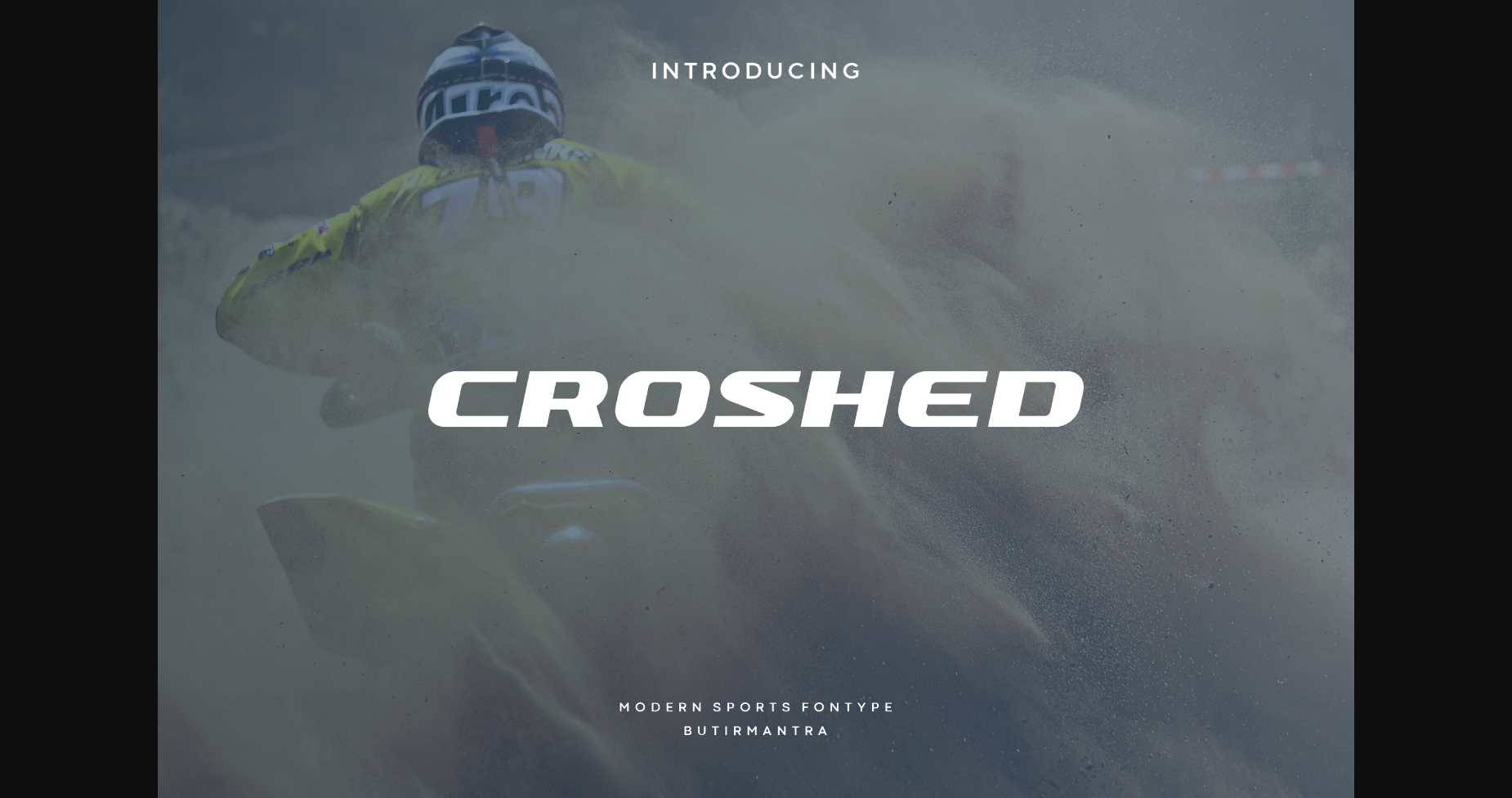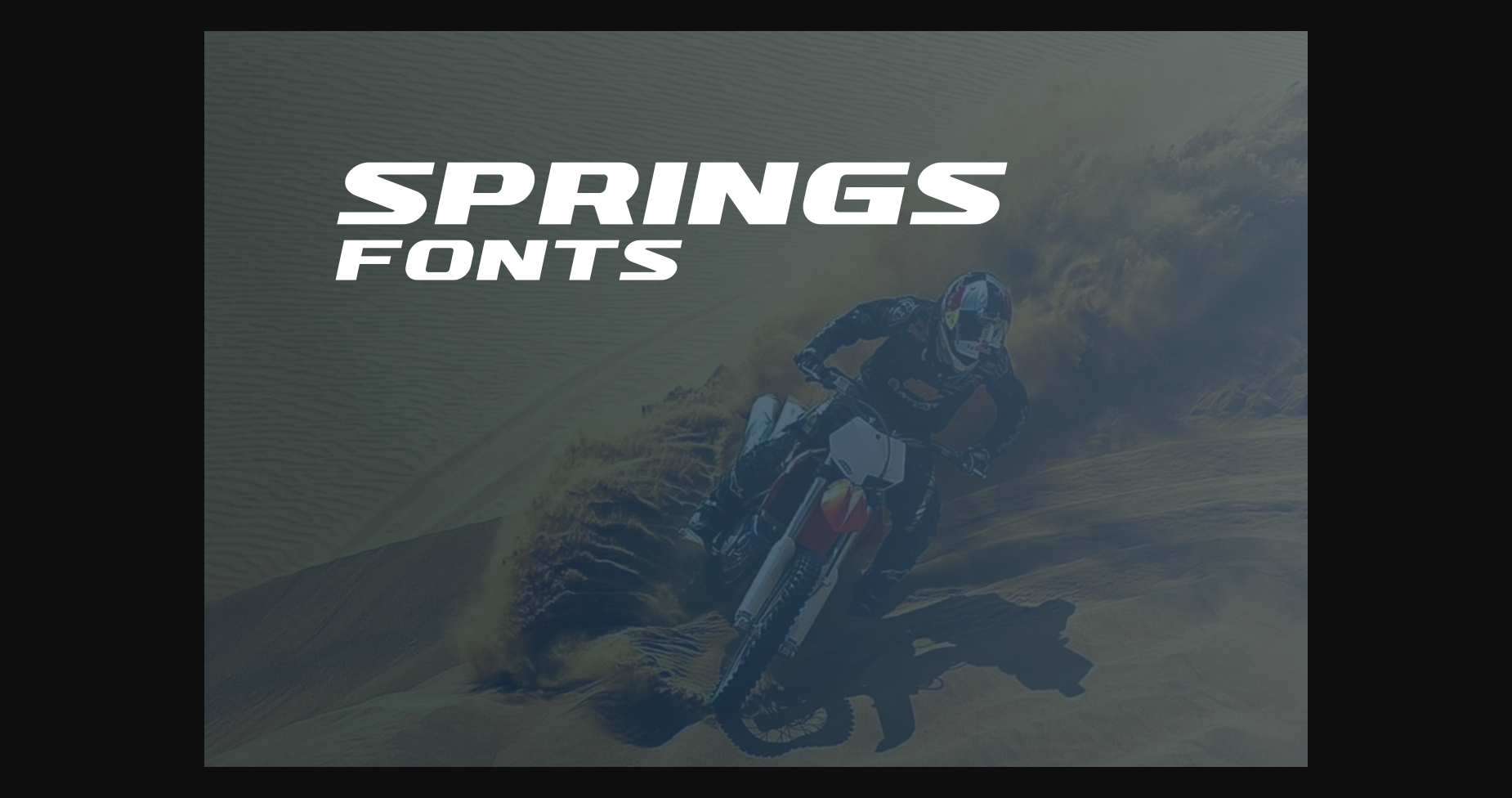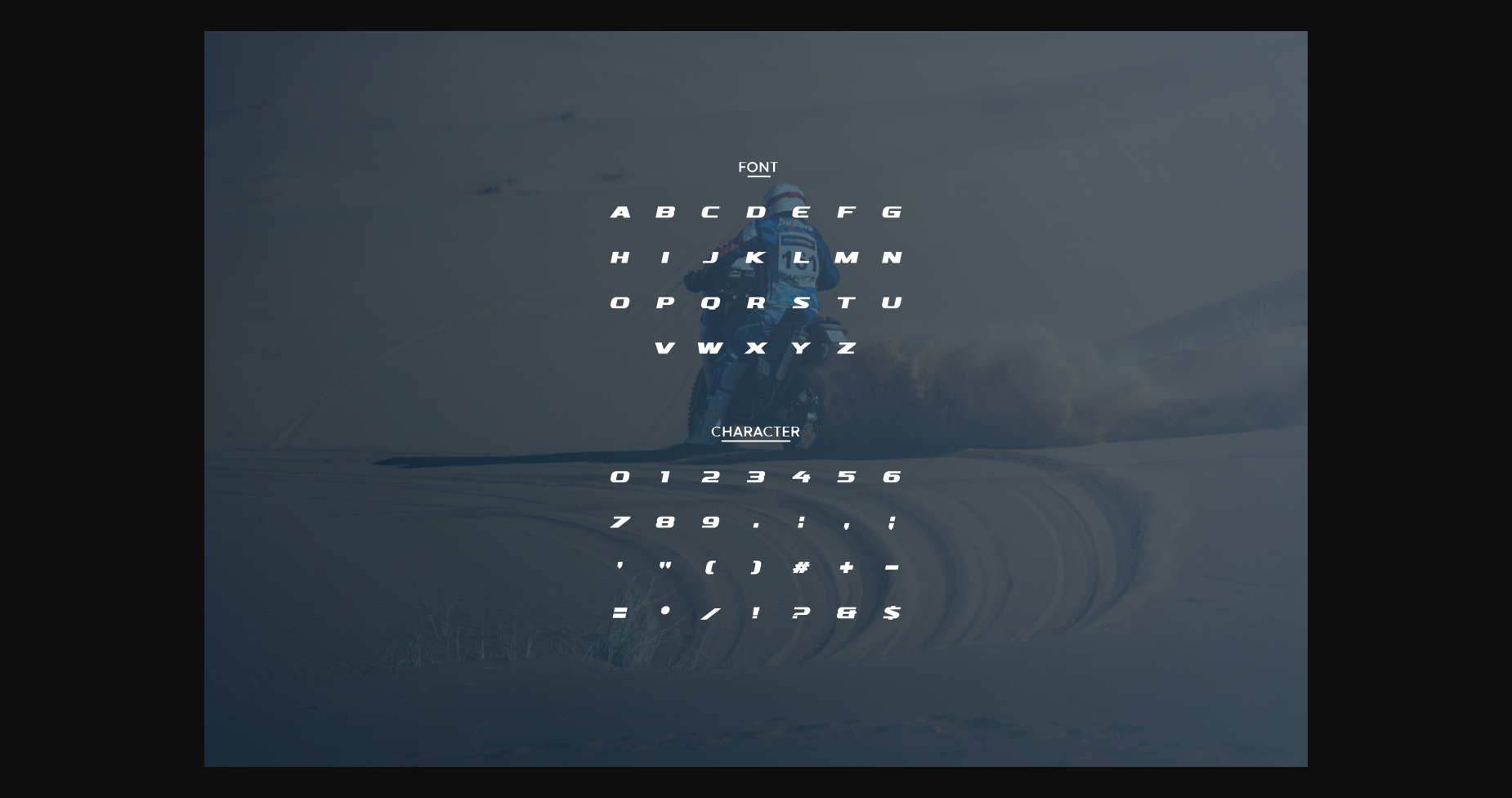
About Croshed Font
Croshed is a thick-lettered, modern sans-serif font. No matter the topic, this font will be an incredible asset to your fonts’ library, as it has the potential to elevate any creation.